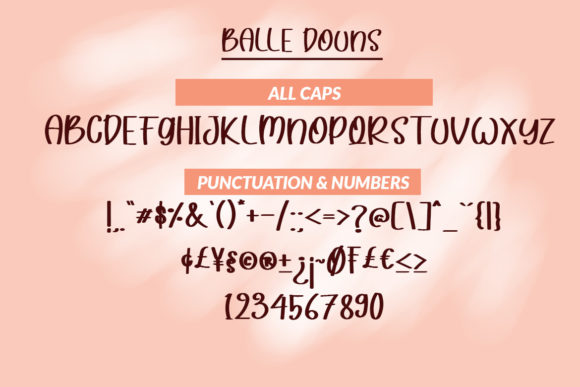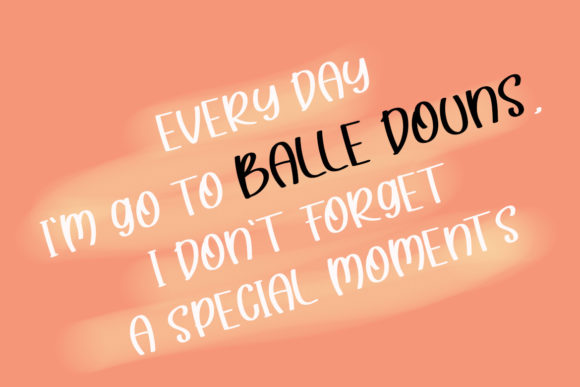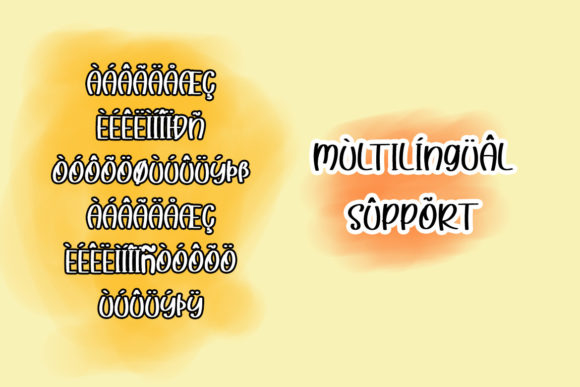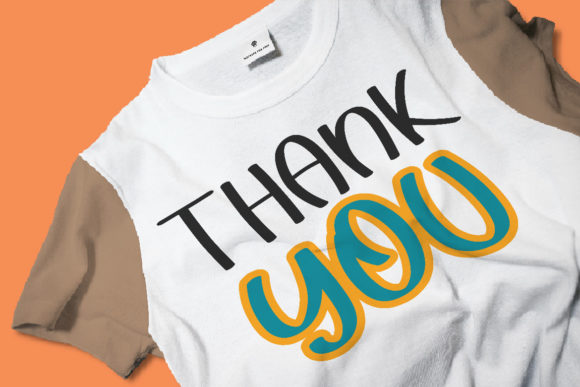
Balle Douns Font: The Cute and Quirky Handwritten Font You’ll Fall in Love With
Are you a designer or crafter looking for a unique and eye-catching font to elevate your designs? Look no further than Balle Douns, a cute and quirky handwritten font that’s sure to capture your heart. With its incredibly distinct and timeless style, Balle Douns is the perfect addition to any design project, from invitations and greeting cards to branding and packaging.
The Charm of Balle Douns
Balle Douns is a one-of-a-kind font that exudes a sense of playfulness and whimsy. Its handwritten style is reminiscent of a bygone era, with a charm that’s hard to resist. The font’s unique character is thanks to its irregularities and quirks, which give it a delightfully human touch. Whether you’re looking to create a design that’s fun and lighthearted or elegant and sophisticated, Balle Douns is the perfect choice.
Key Features of Balle Douns
- Handwritten style: Balle Douns is a genuine handwritten font, with all the quirks and irregularities that make it special.
- Unique character: The font’s distinct style sets it apart from other fonts, making it perfect for designers who want to create something truly original.
- Timeless appeal: Balle Douns has a timeless quality that ensures it will never go out of style.
- Versatile: The font can be used for a wide range of design projects, from digital designs to print materials.
What Makes Balle Douns So Special?
So, what sets Balle Douns apart from other fonts? For starters, its unique handwritten style is incredibly charming, making it perfect for designs that require a personal touch. The font’s irregularities and quirks also give it a sense of authenticity, making it feel like it was written by hand. Additionally, Balle Douns is incredibly versatile, making it suitable for a wide range of design projects, from elegant wedding invitations to playful greeting cards.
How to Use Balle Douns in Your Designs
Using Balle Douns in your designs is easy! Here are a few ideas to get you started:
- Wedding invitations: Balle Douns is the perfect font for wedding invitations, adding a touch of whimsy and romance to your design.
- Greeting cards: The font’s playful style makes it ideal for greeting cards, from birthday cards to thank-you notes.
- Branding and packaging: Balle Douns can add a touch of personality to your brand, making it stand out from the competition.
- Digital designs: The font can be used for digital designs, such as social media graphics and blog posts.
Tips for Pairing Balle Douns with Other Fonts
Pairing Balle Douns with other fonts can create a stunning design. Here are a few tips to keep in mind:
- Contrast with a sans-serif font: Pairing Balle Douns with a clean sans-serif font creates a beautiful contrast that makes your design stand out.
- Match with a script font: Pairing Balle Douns with another script font can create a cohesive look that’s perfect for elegant designs.
- Experiment with font sizes: Playing with font sizes can add visual interest to your design and create a more dynamic look.
Balle Douns is a one-of-a-kind font that’s sure to capture your heart. With its unique handwritten style, timeless appeal, and versatility, it’s the perfect addition to any design project. Whether you’re a designer or crafter, Balle Douns is a must-have font that will help you create spectacular designs that stand out from the crowd. So why wait? Fall in love with Balle Douns today and take your designs to the next level!